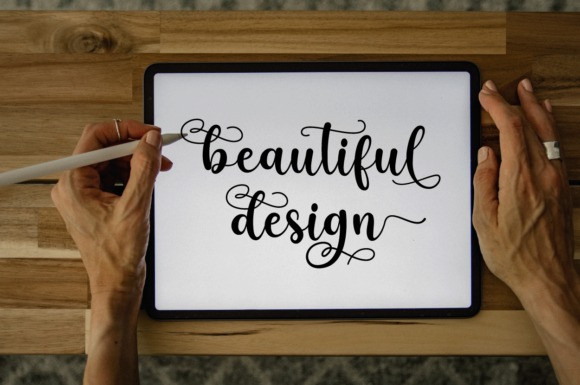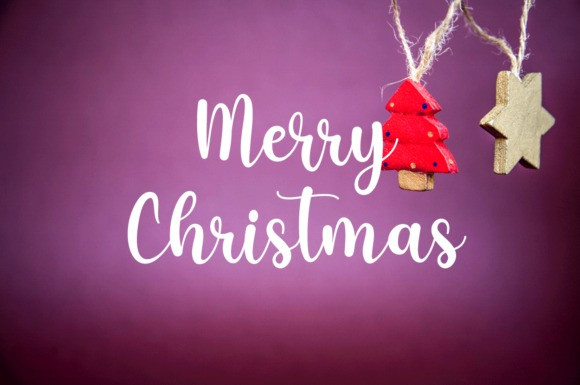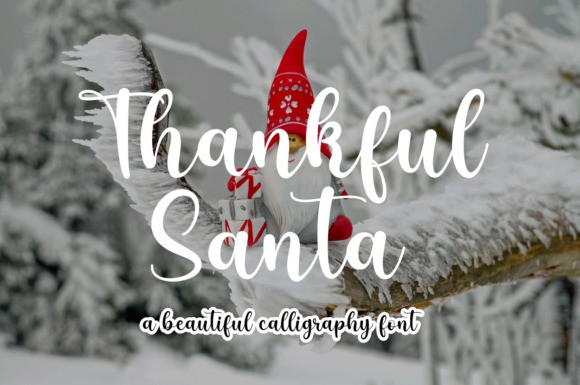
Thankful Santa Font
Thankful Santa Script Font is a flowing and sweet calligraphy typeface with characters that dance along the baseline. It will add a luxury spark to any design project that you wish to create! This font is PUA encoded which means you can access all of the amazing glyphs and ligatures with ease!